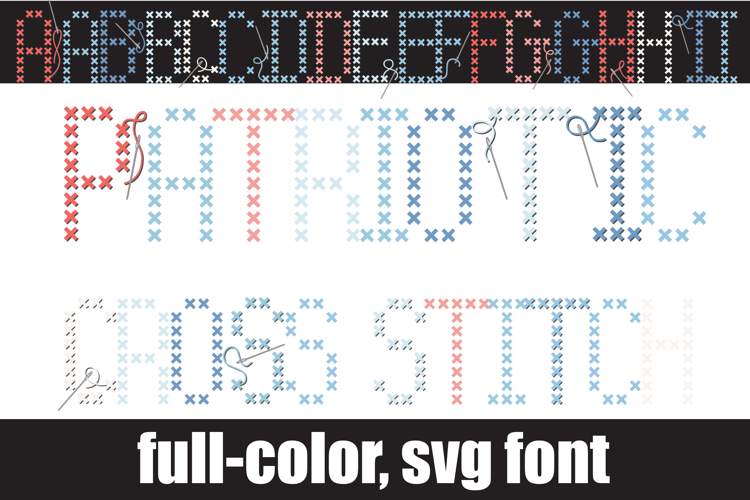
Patriotic Cross Stitch Too Color Font
This full-color, font is in a pastel patriotic color palette that looks a lot like cross stitching. There is an alt case of additional colors of each letter that you can access through your system's character map.